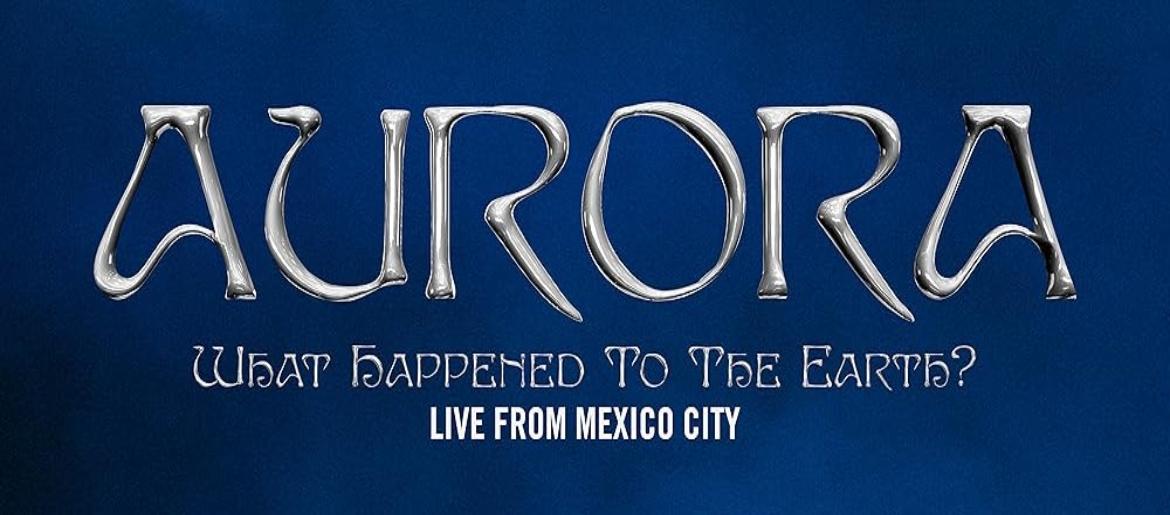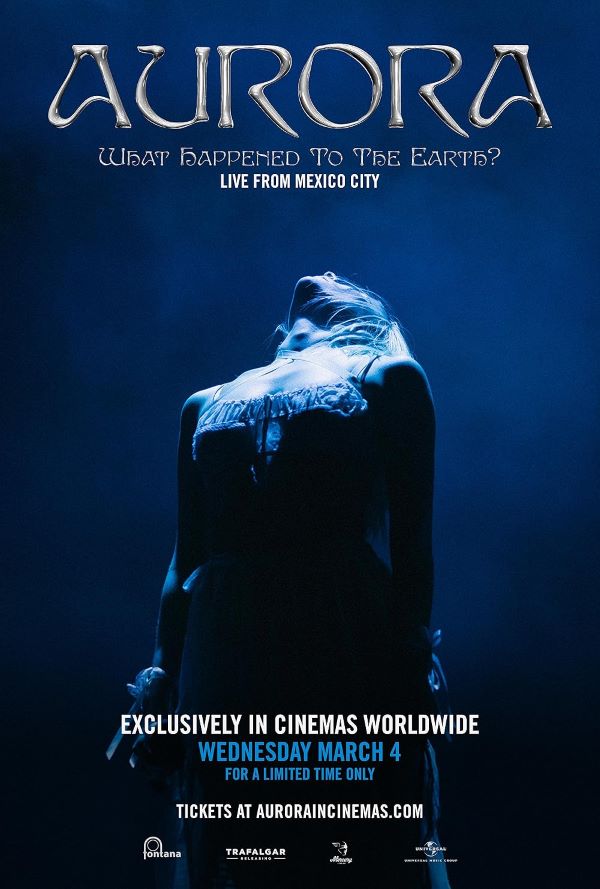
The Aurora: What Happened to the Earth? Font
Aurora Font
The Aurora: What Happened to the Earth? Font is based on the Edda typeface, but the version used in Aurora’s official branding is a modified custom edition featuring unique glyph adjustments and stylistic refinements. This makes the font seen on her website and promotional materials different from the standard Edda release. It is a decorative serif display font with elegant curves and distinctive character shapes that create a mystical, poetic, and ethereal visual identity fitting Aurora’s artistic style. On her website, the font file appears as “custom-font.woff,” which can be renamed or converted into other formats for broader device compatibility. A bold version can be created using font-editing apps that apply weight styling.
About Aurora: What Happened to the Earth?
Aurora: What Happened to the Earth? is a musical project by Aurora, the Norwegian singer-songwriter known for her atmospheric sound and emotional storytelling. The work explores themes of nature, humanity, and environmental reflection. Its distinctive typography enhances the mystical and introspective tone of the project, reinforcing Aurora’s unique visual and musical identity.